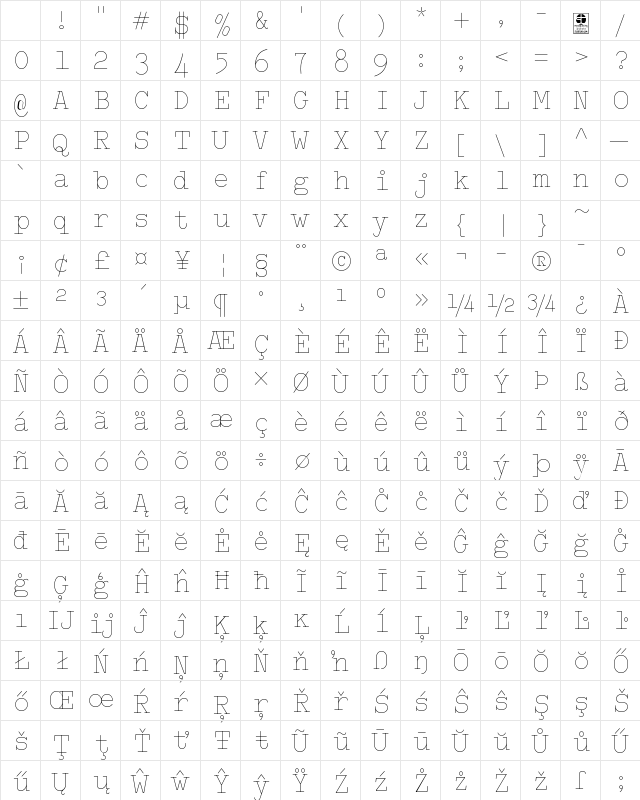
Typo Writer Thin Demo is a composed and adaptable typeface that performs quietly and consistently across a wide range of design contexts. Its slender proportions lend an understated elegance to any composition.